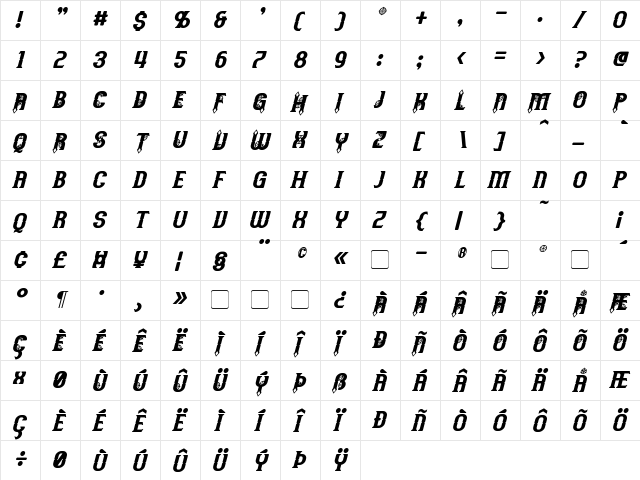
Timepiece Italic
| Foundry | Pixel Sagas |
| Designer | Neale Davidson |
Design Context for Timepiece Typeface
Timepiece offers clean, dependable letterforms without strong stylistic allegiance, making it a practical choice for designers who need flexibility. The slanted form adds forward momentum and visual energy.
Pro Tip: Try Timepiece for annotation and caption copy alongside an upright companion — the contrast in angle creates a dynamic but ordered typographic system.